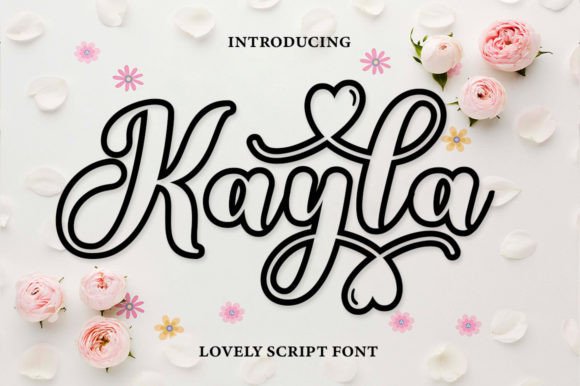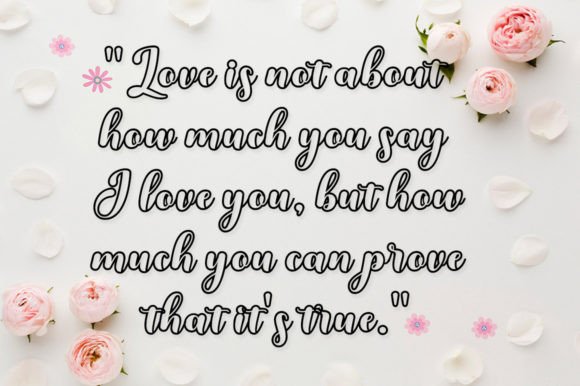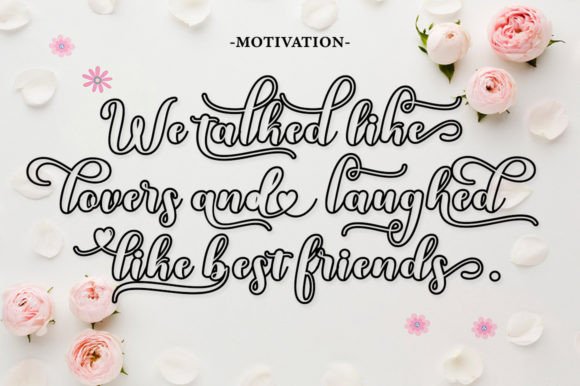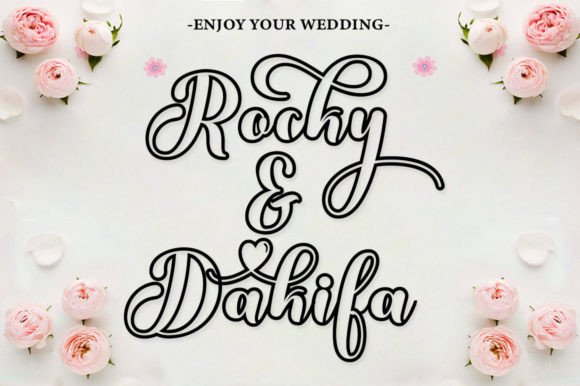
Kayla Outline Font
About the Kayla Outline Font
Discover the charm of Kayla Outline Font. This font is a perfect blend of modern aesthetics and classic appeal. Kayla Outline is a cute, versatile, and flexible handwritten font. Warm, romantic, and jovial, this font will turn any of your project ideas into real works of art. This font is PUA coded which means you can access all the glyphs and swashes easily, this font is complete with language support!
Kayla Outline’s playful, yet refined nature makes it ideal for headlines, short text blocks on invitations or social media graphics, and logos requiring a touch of hand-drawn charm. It’s also well-suited for packaging design where a friendly, approachable aesthetic is desired. However, its delicate outlines and varied stroke weights are not well-suited to body text or long paragraphs, nor would it be appropriate for user interfaces demanding high readability.
Pairing Kayla Outline with a clean sans-serif like Lato or Open Sans provides a strong contrast, balancing its hand-drawn informality with a modern touch. For a more elegant effect, consider pairing it with a classic serif such as Garamond or Playfair Display. The script font Pacifico could also create a cohesive and whimsical feel depending on your project’s specific needs.
Its overall personality is best described as cheerful and approachable, yet sophisticated enough for upscale branding in appropriate contexts. Avoid using it where clear, highly legible text is paramount.
Kayla Outline Font Usage Examples
Kayla Outline Font Example